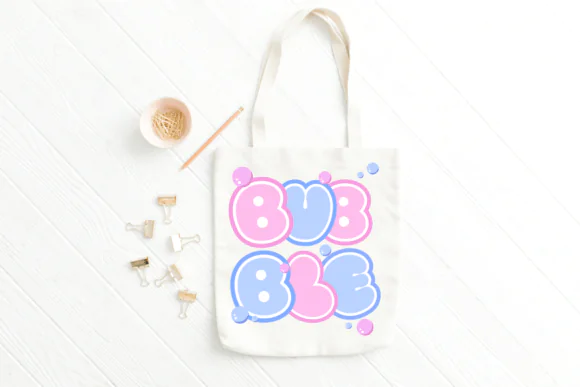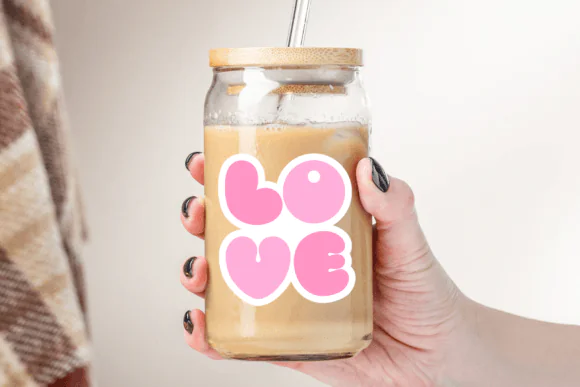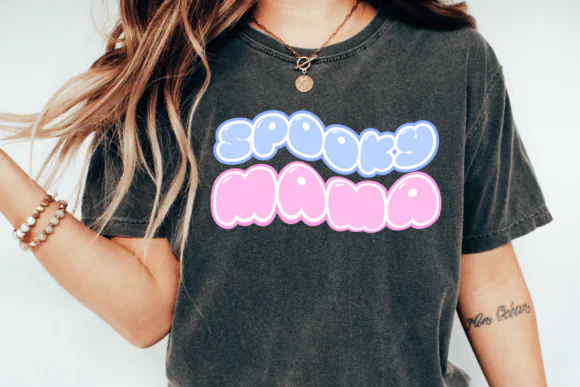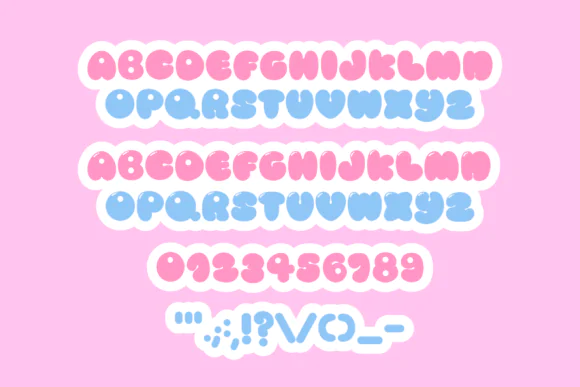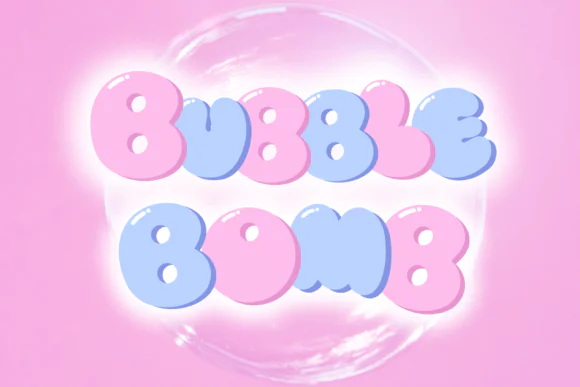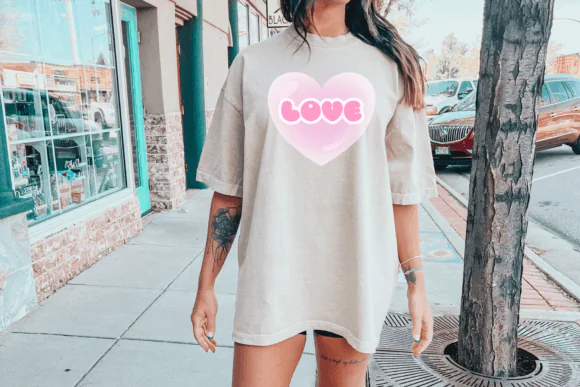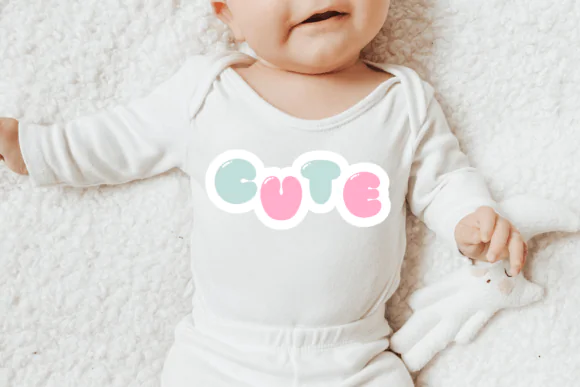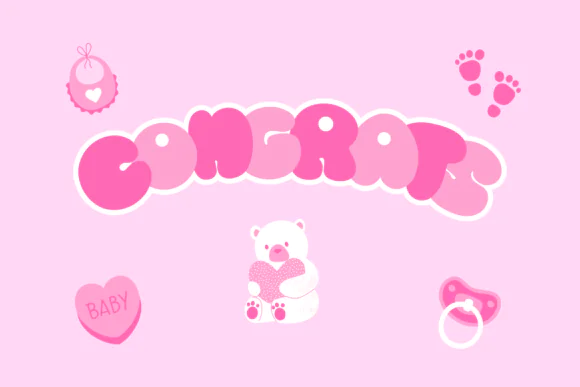
Bubble Font | Cute Rounded Playful Typeface for Children’s Books, Logos, Greeting Cards, Stickers, Invitations, Crafts & Cheerful Creative Designs
Add a cute, cheerful, and playful touch to your designs with Bubble Font, an adorable rounded typeface created to bring warmth, charm, and joy into every creative project. With its bubbly letterforms and friendly appearance, this font is perfect for designs that need a soft, fun, and lighthearted visual style.
Bubble Font works beautifully for children’s books, playful logos, greeting cards, stickers, party invitations, classroom materials, social media graphics, product labels, packaging, printable wall art, scrapbooking, DIY crafts, and kids-themed digital designs. Its rounded style makes your text feel approachable, happy, and easy to enjoy.
Whether you are designing a children’s storybook title, a cute brand logo, a birthday invitation, a cheerful greeting card, or a fun sticker set, Bubble Font helps your message stand out with a joyful and charming personality.
• Children’s books
• Cute logo designs
• Greeting cards
• Stickers and labels
• Party invitations
• Birthday designs
• Classroom materials
• Kids’ printables
• Product packaging
• Printable wall art
• Scrapbooking
• DIY craft projects
• Playful branding
• Fun headline designs